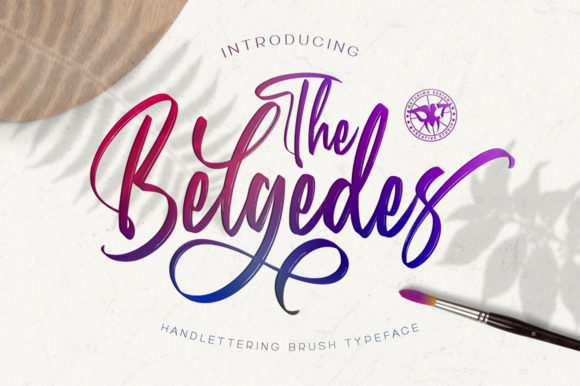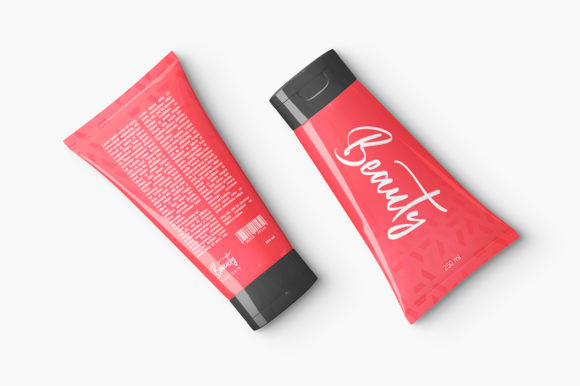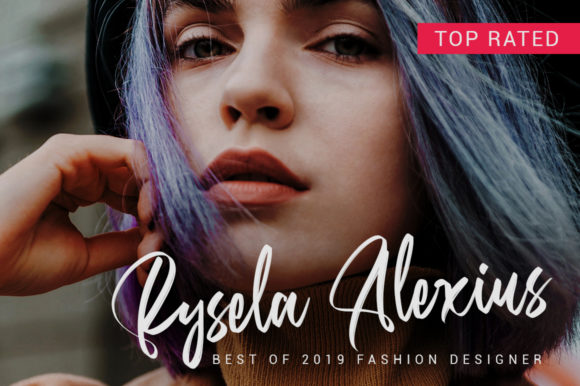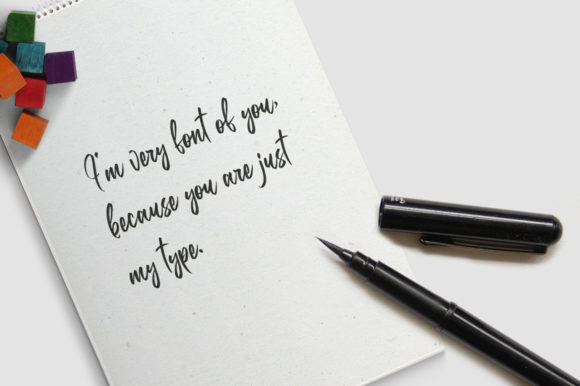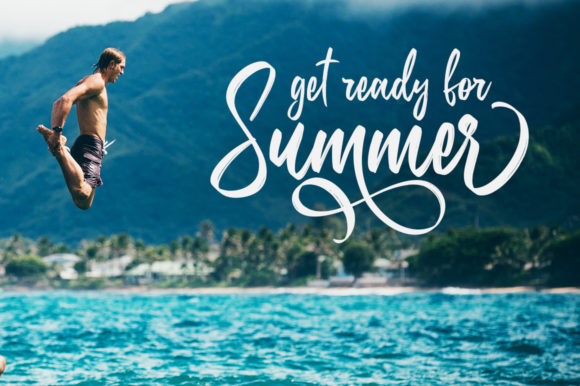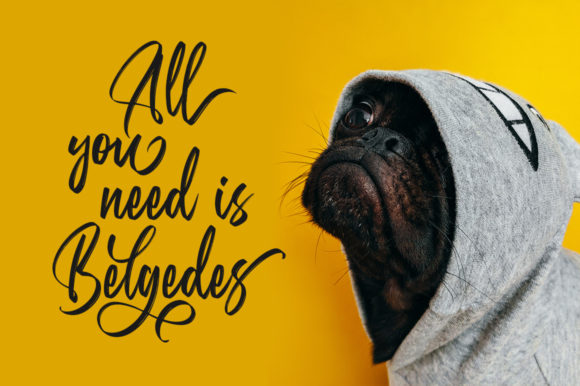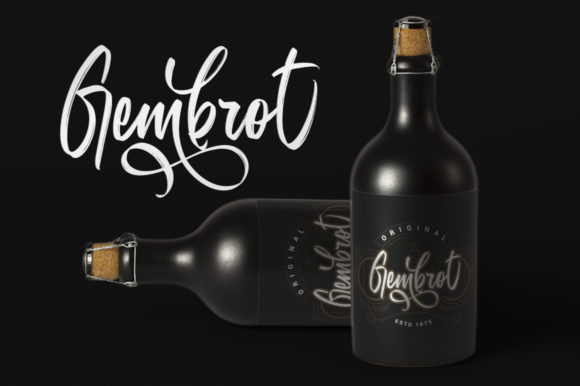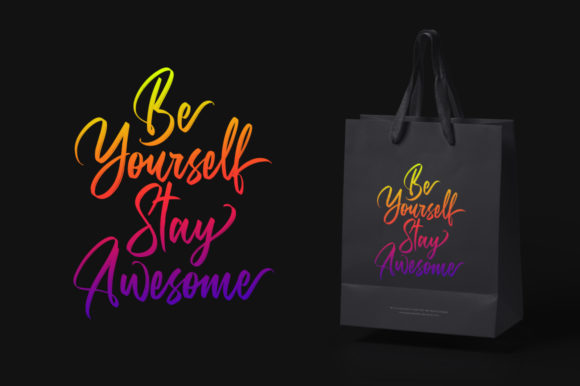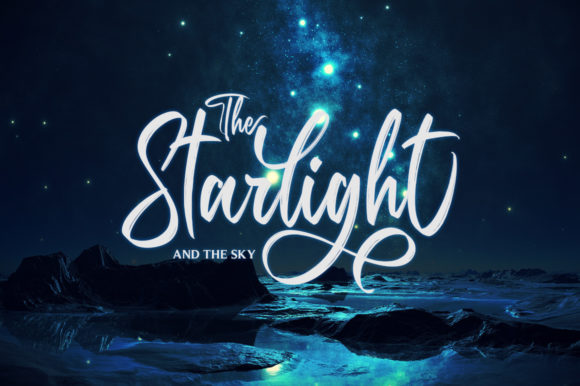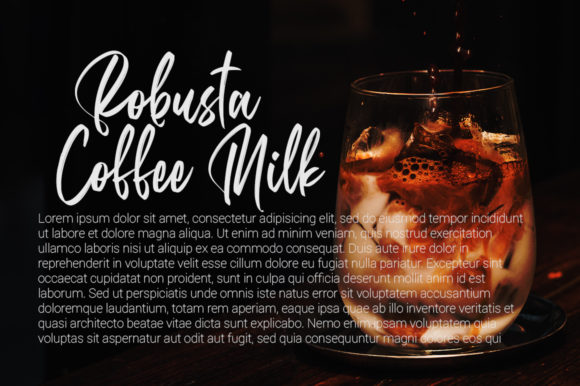
Belgedes Font
About Belgedes Font
Belgedes is a brush script font with hand lettering style. This font is perfect for anything that needs a touch of elegance.